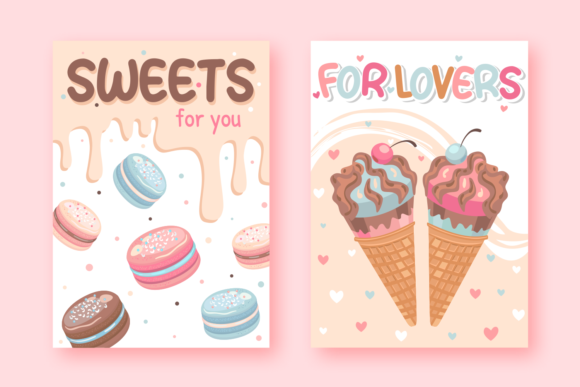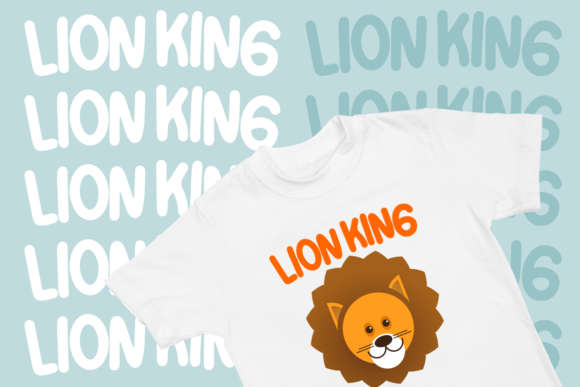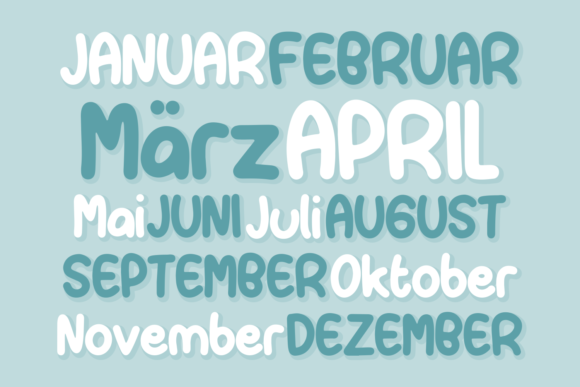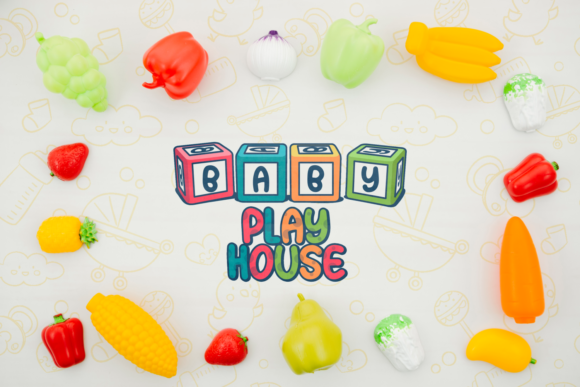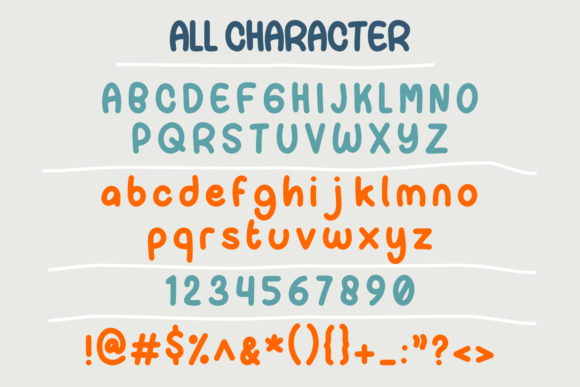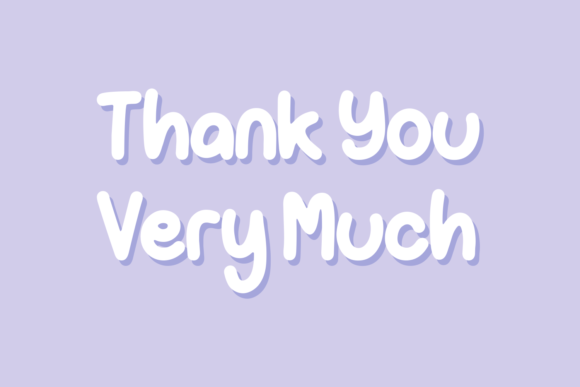
Introduction to Paper Candy Font
Paper Candy is a simple, friendly and cute handwritten font.
This adaptable font will look great on a variety of design ideas It will add a fun and friendly touch to each of your projects.
Key Features of Paper Candy Font